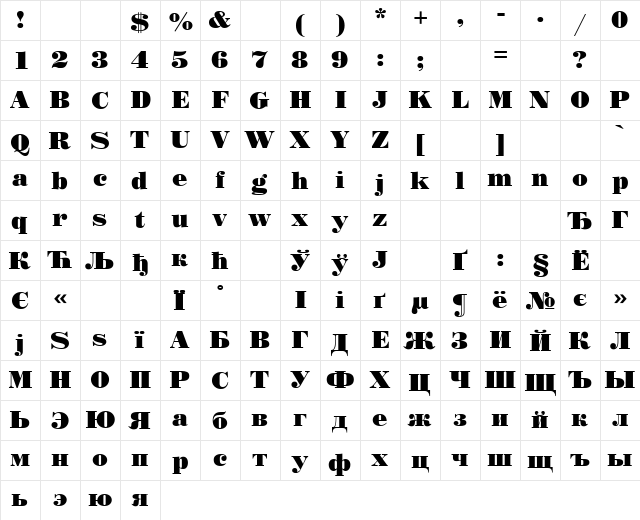
StandardPoster Cyrillic
Design Context for StandardPoster Typeface
StandardPoster is a composed and adaptable typeface that performs quietly and consistently across a wide range of design contexts.